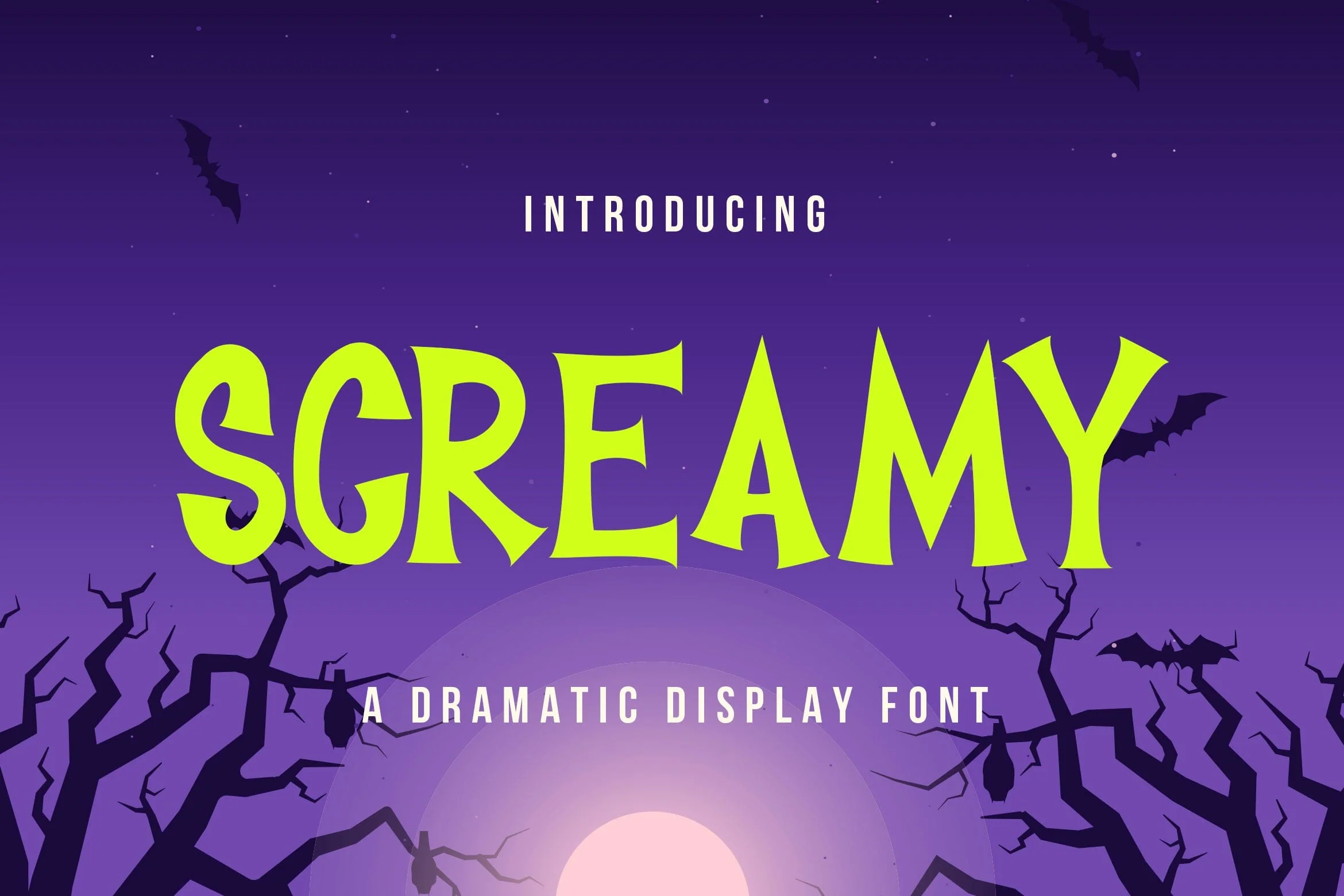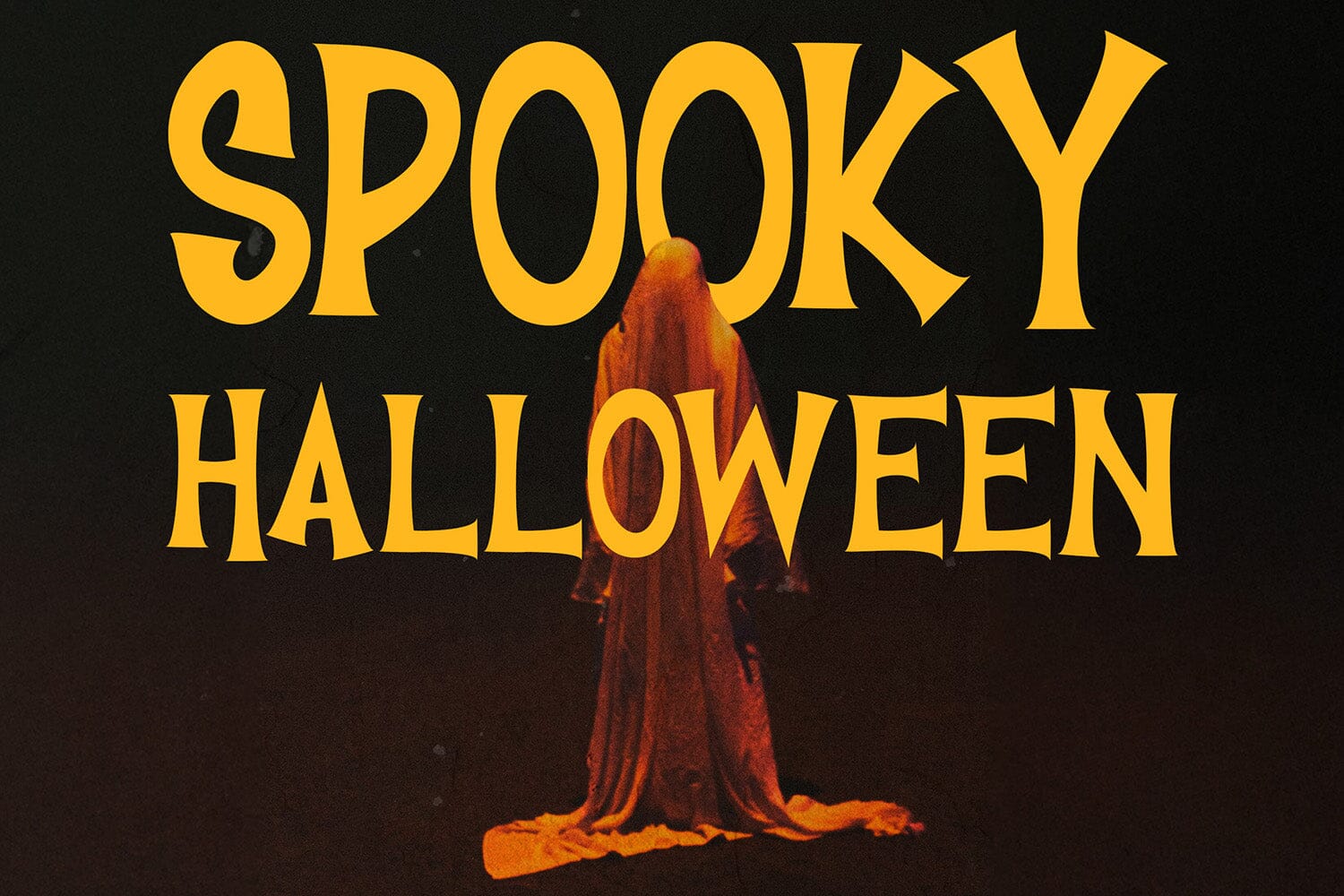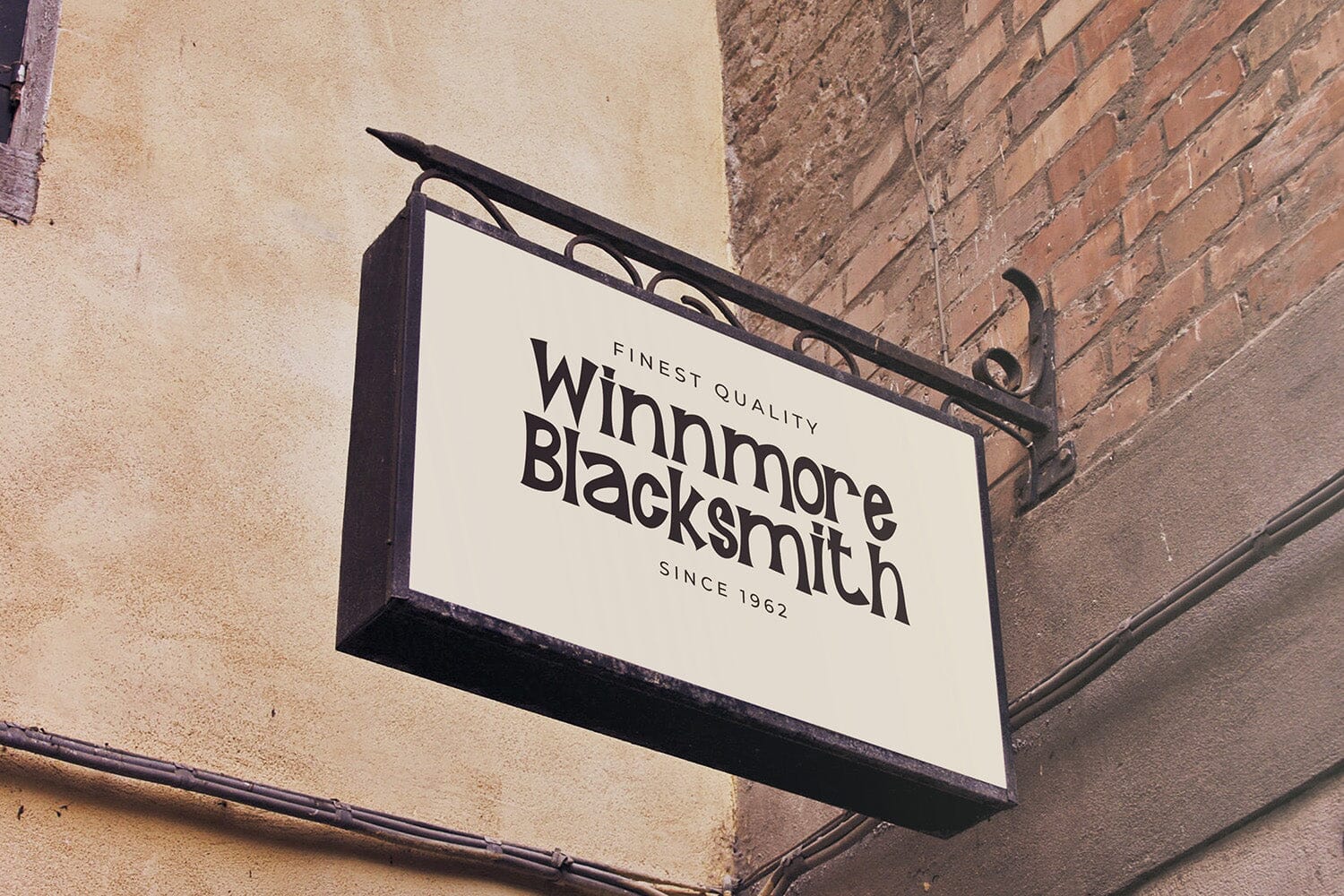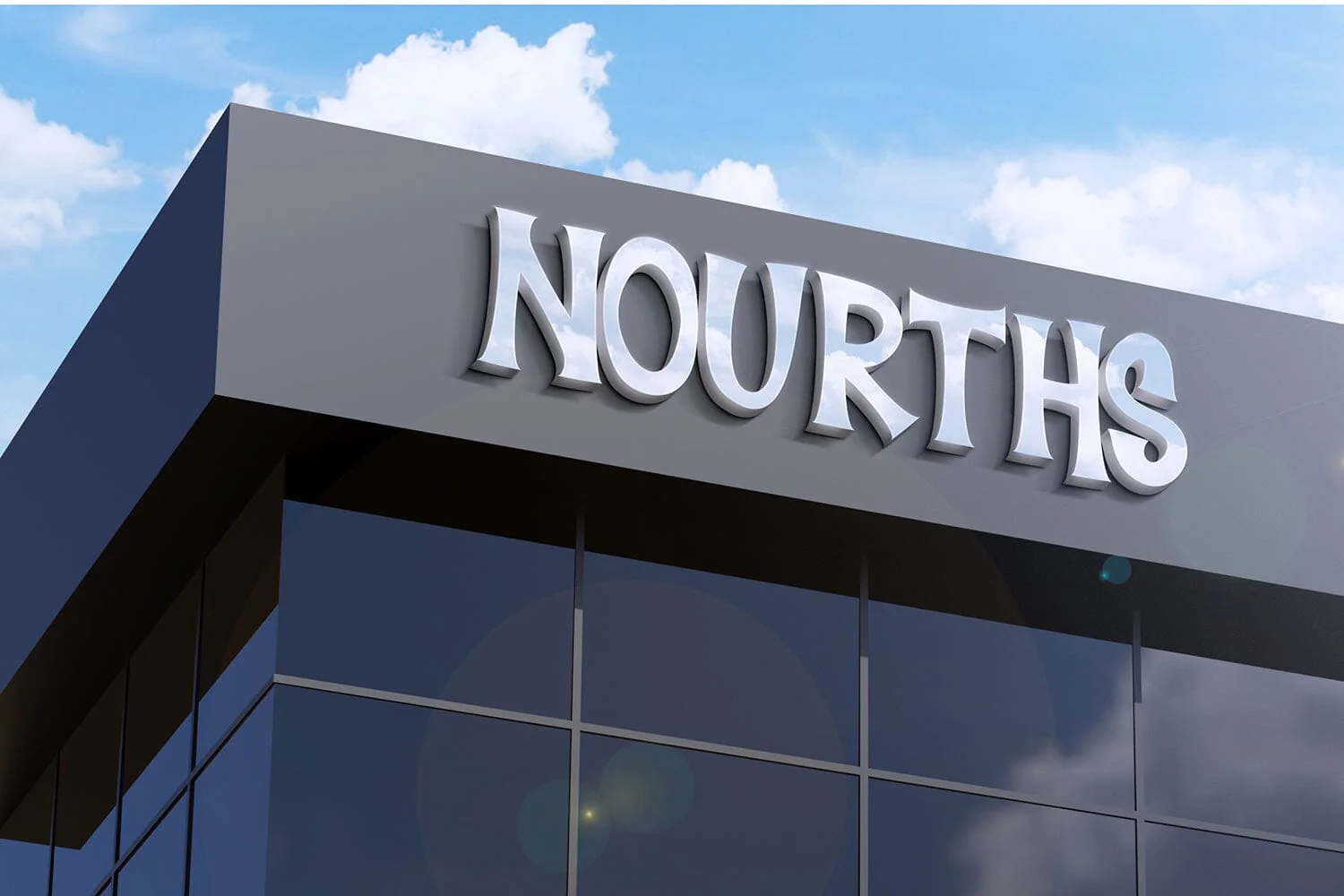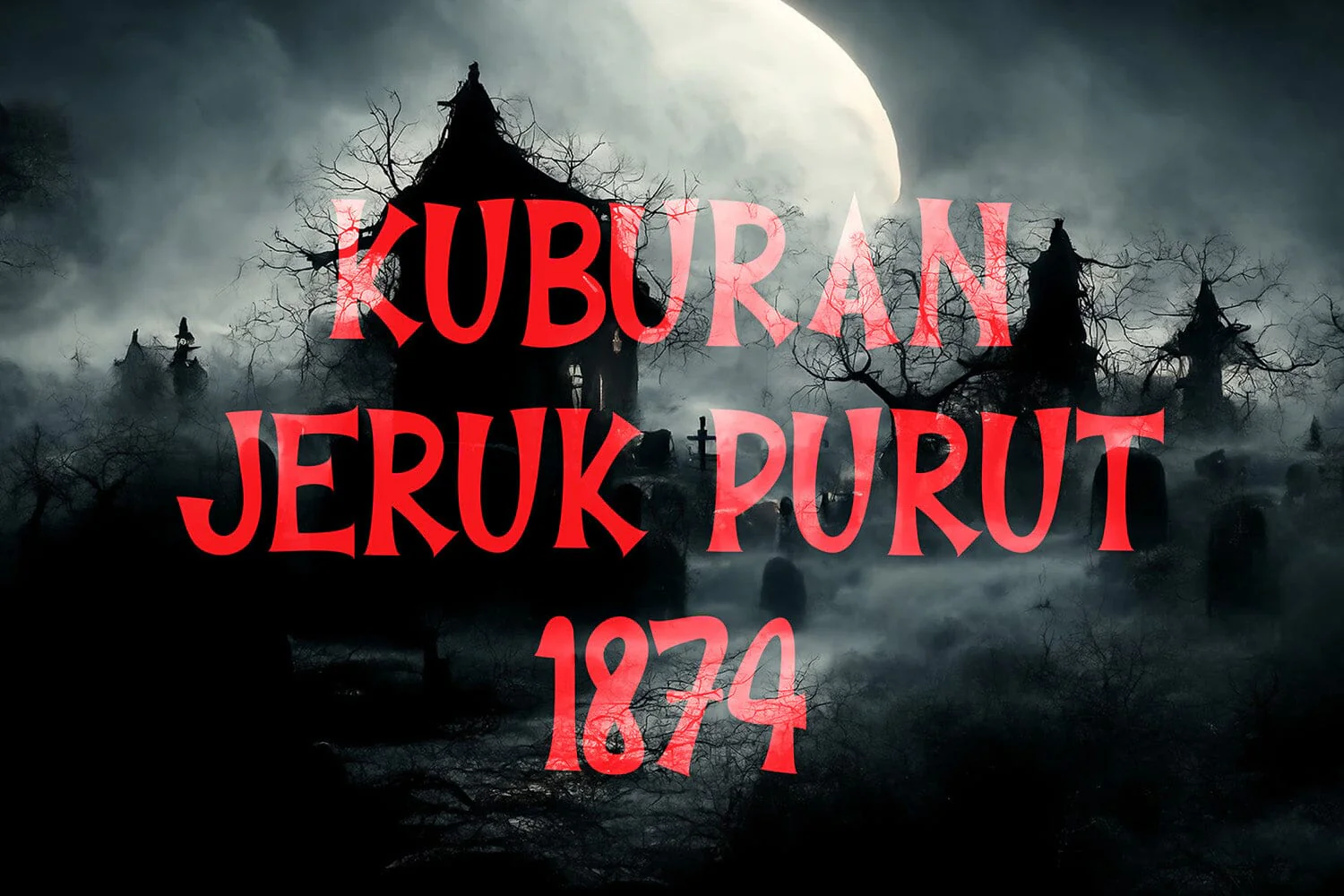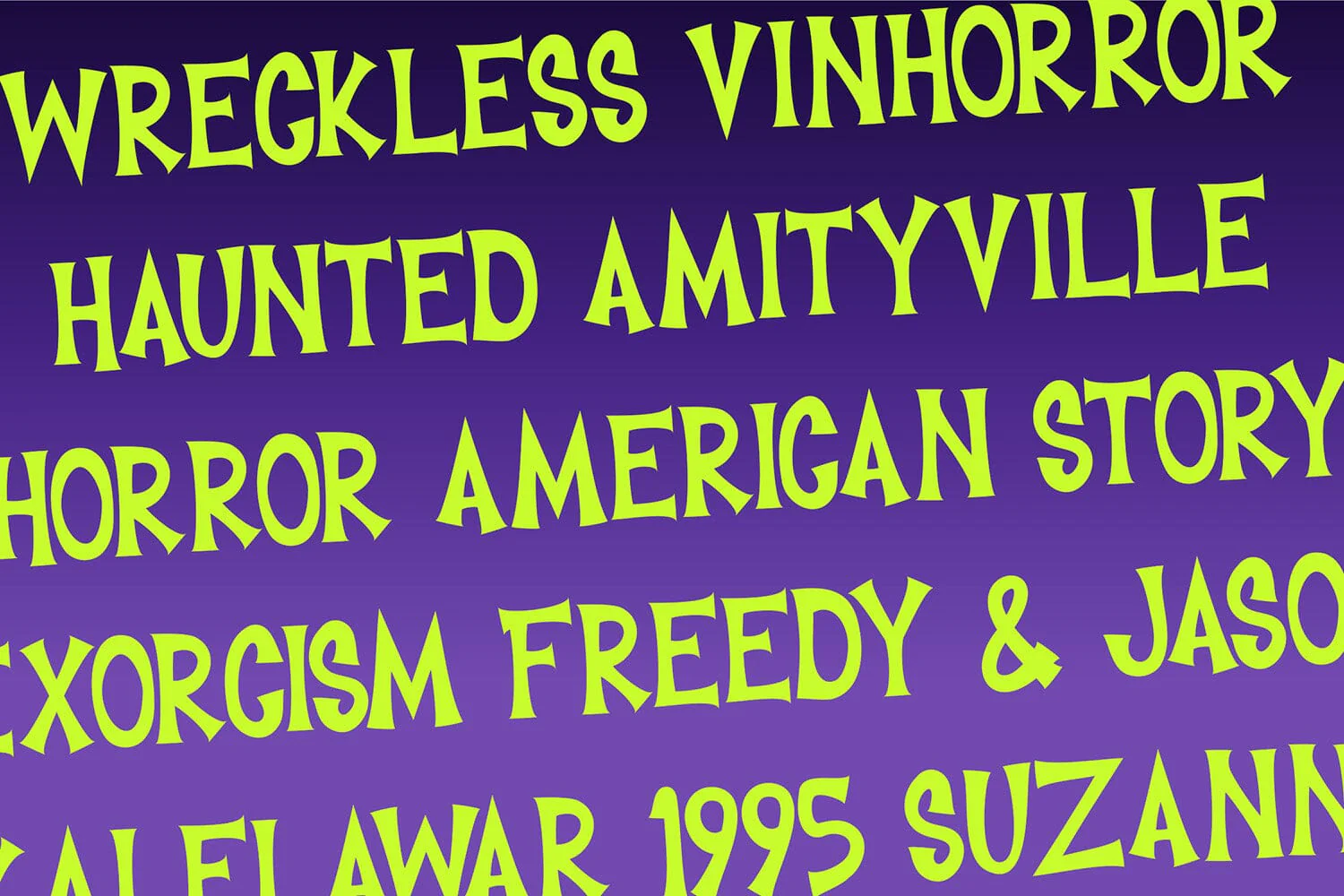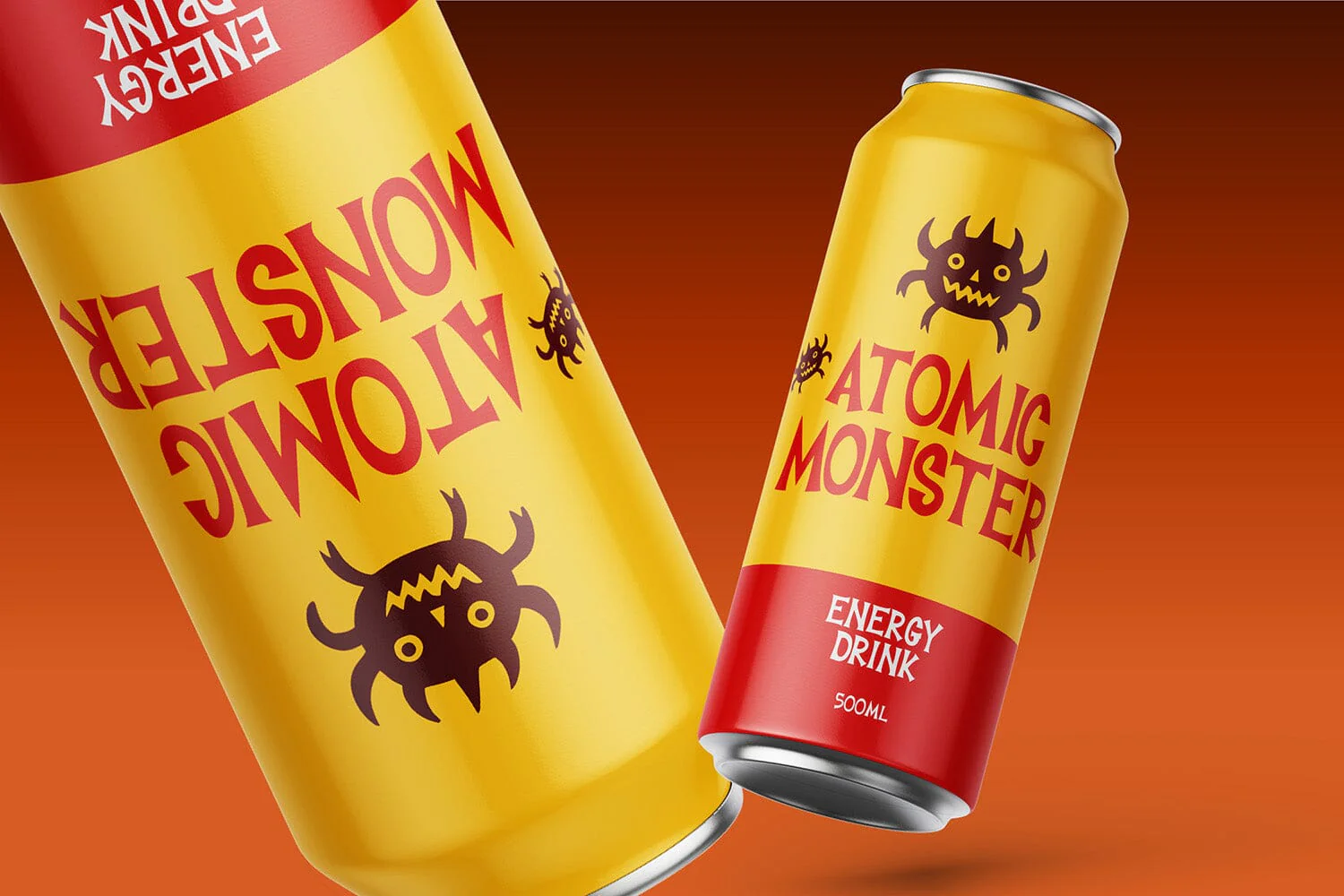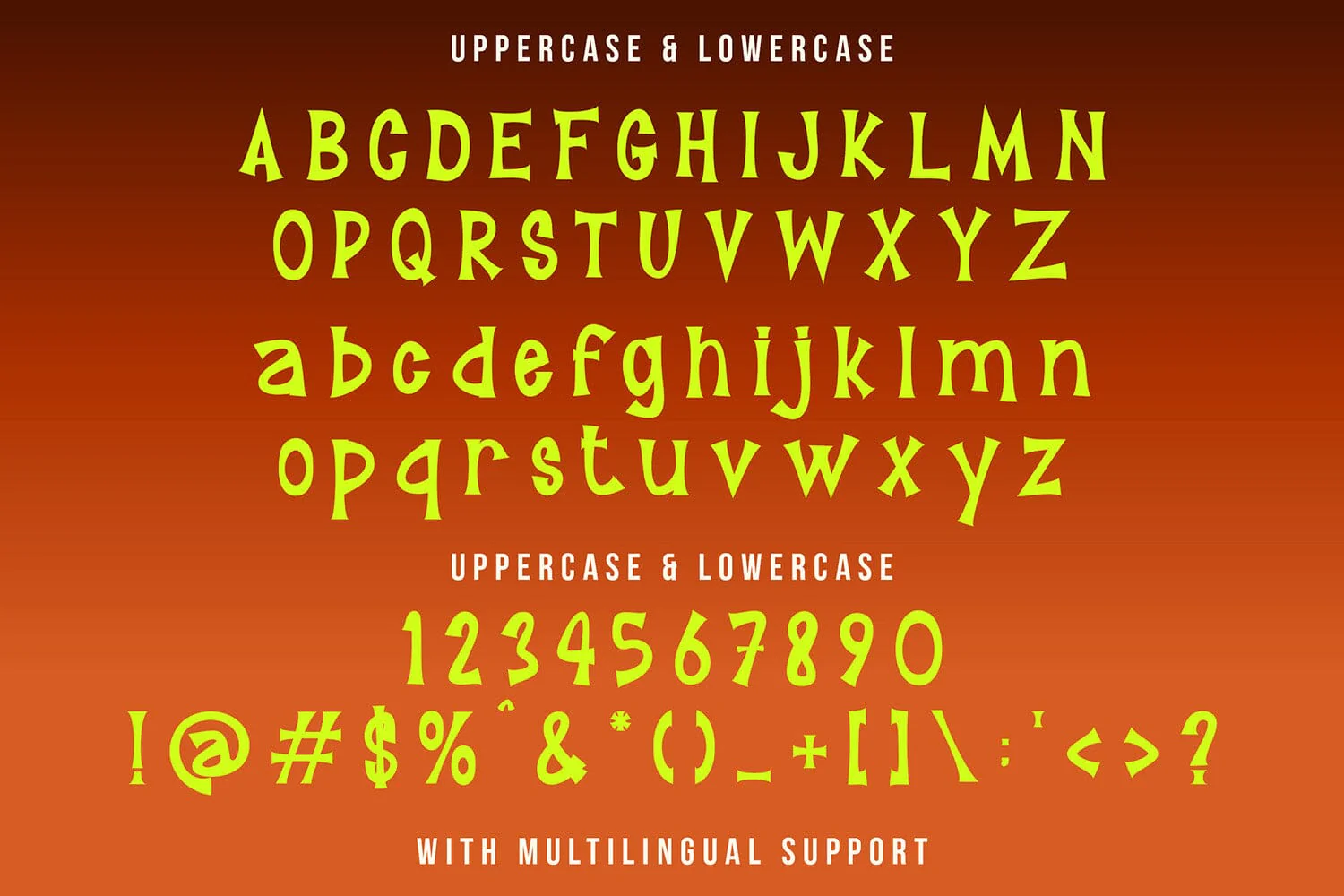
Screamy - Spooky Halloween Font
Introducing Screamy - Spooky Halloween Font
Screamy is a spooky Halloween display font designed to create a dramatic and eerie atmosphere. Its sharp curves and creepy character shapes give the typography a mysterious and haunting personality that instantly captures attention.
This font is perfect for Halloween posters, event promotions, horror-themed designs, spooky headlines, party invitations, branding, social media graphics, and creative typography projects. Screamy delivers a bold and theatrical style that enhances dark and dramatic visuals.
With its distinctive spooky character and expressive display style, Screamy helps bring a chilling and playful horror vibe to any design.
Introducing Screamy - Spooky Halloween Font
Screamy is a spooky Halloween display font designed to create a dramatic and eerie atmosphere. Its sharp curves and creepy character shapes give the typography a mysterious and haunting personality that instantly captures attention.
This font is perfect for Halloween posters, event promotions, horror-themed designs, spooky headlines, party invitations, branding, social media graphics, and creative typography projects. Screamy delivers a bold and theatrical style that enhances dark and dramatic visuals.
With its distinctive spooky character and expressive display style, Screamy helps bring a chilling and playful horror vibe to any design.